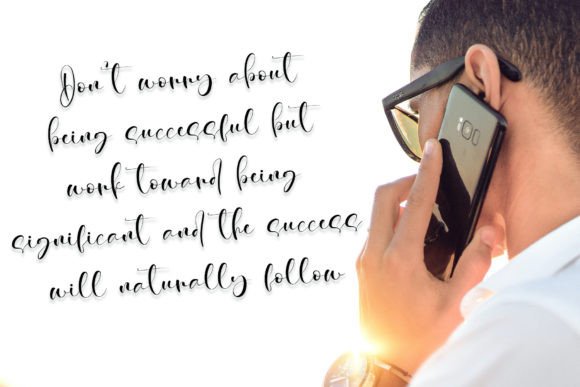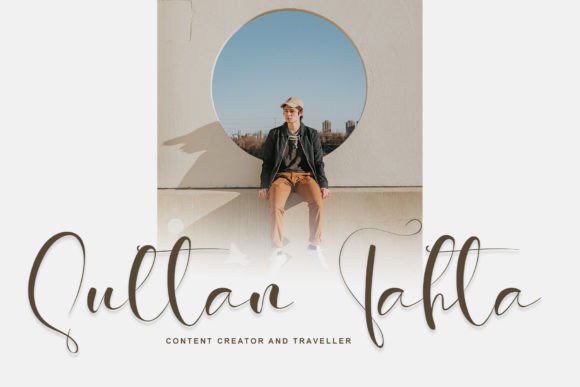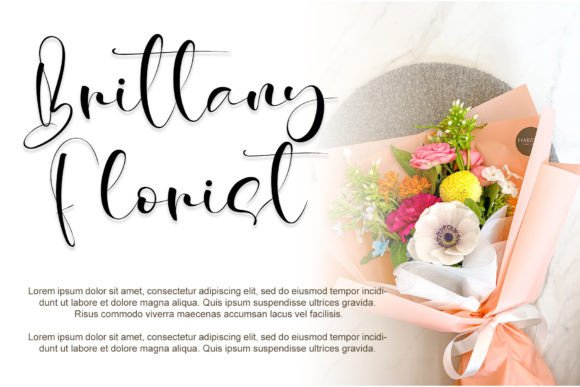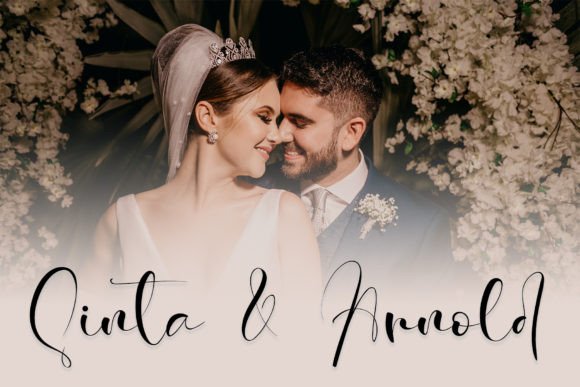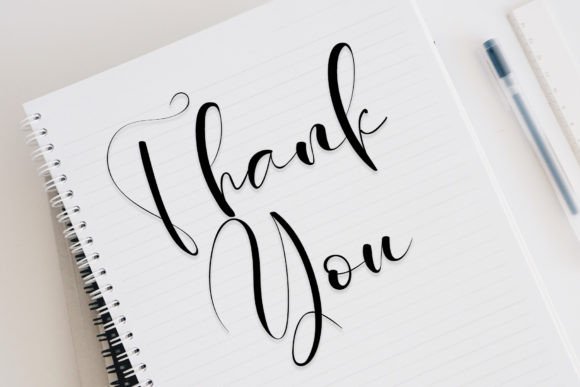
The Perfect Font for a Touch of Happiness
Remember the feeling of excitement and joy when you stumble upon the perfect font for a project? It’s like a spark of creativity ignites, and suddenly, your design comes to life. For designers, finding that perfect font can make all the difference between a good design and a great one. And that’s exactly what the Bridesting Font offers – a stylish and modern handwritten font that’s perfect for a wide range of applications.
With its PUA encoding, the Bridesting Font makes it easy to access all the amazing glyphs and ligatures, giving you endless possibilities to create unique and captivating designs. Whether it’s for greeting cards, headlines, branding, or packaging, this font is sure to add a touch of happiness to your creations.
Bridesting Font Key Features
- Unique Characteristics: Bridesting Font features a distinctive, elegant design with a mix of modern and classic elements, making it ideal for use in high-end branding, advertising, and editorial applications.
Bridesting Font Review
Overall, I think Bridesting Font has some great qualities that make it a solid choice for certain projects. ✨ One thing I really like is the unique blend of modern and vintage elements in the design. It’s not too over-the-top, but still adds a touch of elegance to any text. ✨ The font also seems to be well-suited for headings and titles, where it can really shine.
Another advantage of Bridesting Font is its high legibility, even at smaller font sizes. ✨ This makes it a great option for body text, where readability is crucial. The font also seems to be relatively easy to customize, with a wide range of weights and styles available.
- ⚠️ Limited support for non-Latin scripts, which may be a problem for projects that require multilingual support.
- ⚠️ Not as suitable for paragraphs of text, where the font’s unique characteristics may become overwhelming.
- ⚠️ May not be the best choice for very long documents or articles, where the font’s style may become repetitive.
In conclusion, Bridesting Font is a solid choice for projects that require a touch of elegance and sophistication. While it may not be the best option for every project, it’s definitely worth considering for certain types of text.
Tips for Getting the Most Out of Bridesting Font
Here are some tips to help you get the most out of Bridesting Font:
- Combine Bridesting Font with other fonts to create a visually appealing contrast.
- Use Bridesting Font in combination with images and graphics to add depth and interest to your design.